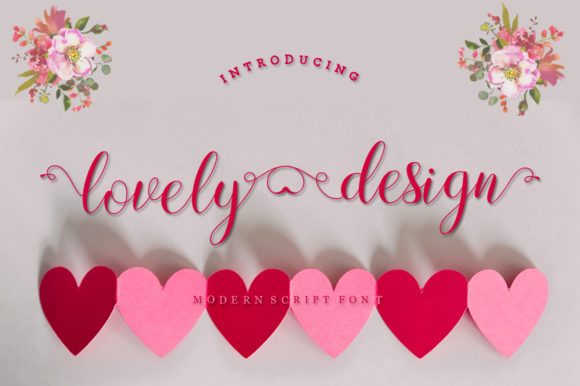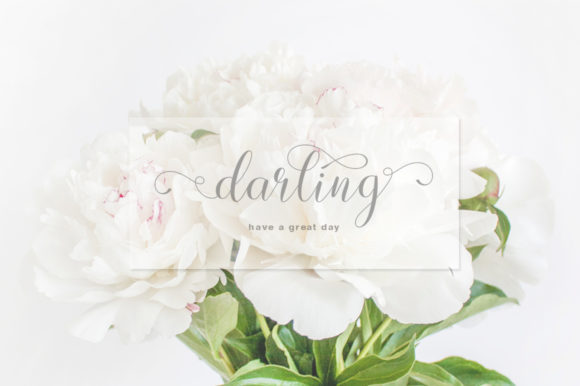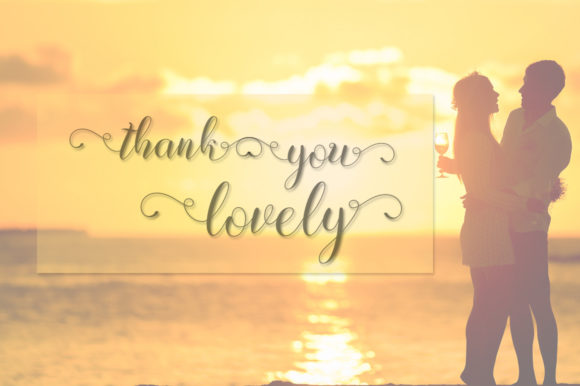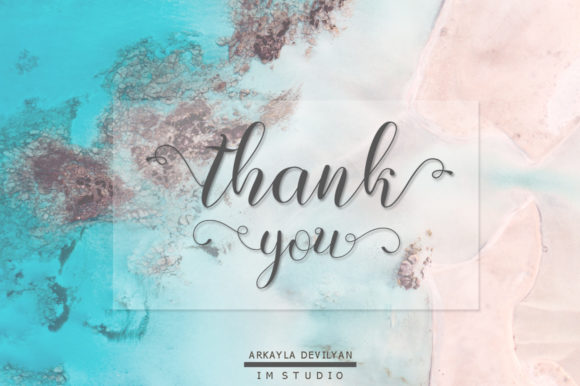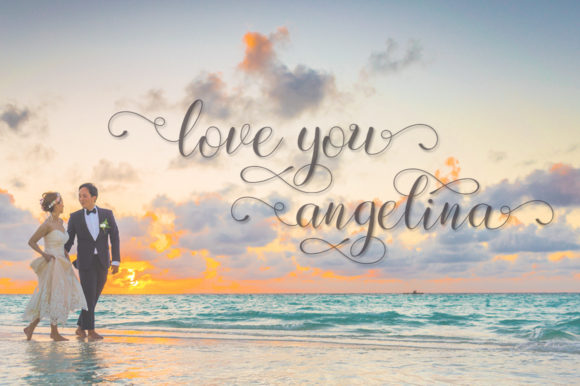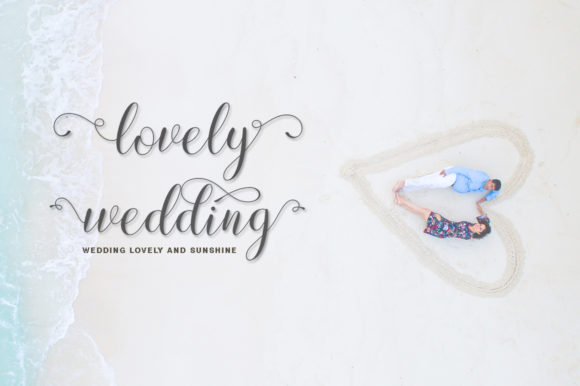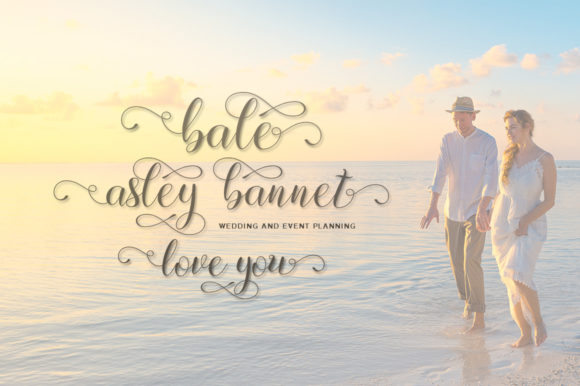
Lovely Design Font
About Lovely Design Font
Lovely Design is a modern calligraphy font. It includes elegant swashes that will give your designs a luxurious look.
it’s perfect for logos, product packaging, wedding invitations, branding, headlines, signage, labels, signatures, book covers, posters, quotes, and more.